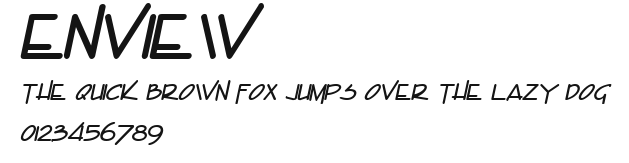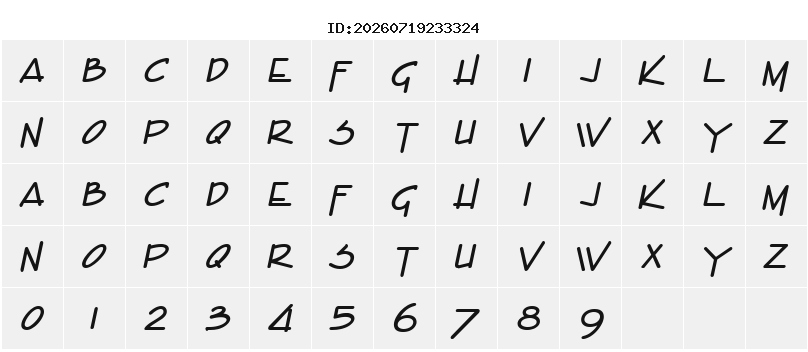
Enview Preview
• Font Name: Enview
• Font ID: Alts:Enview Bold Italic
• Full Font Name: Enview Bold Italic
• Version: 1.0/1995: 2.0/2001
• PostScript Name: Enview-BoldItalic
• Character Count: 217
About Enview.ttf
Enview.ttf is a modern, elegant sans-serif font designed for ultimate readability and visual harmony. Perfect for branding, headlines, web design, and print materials.